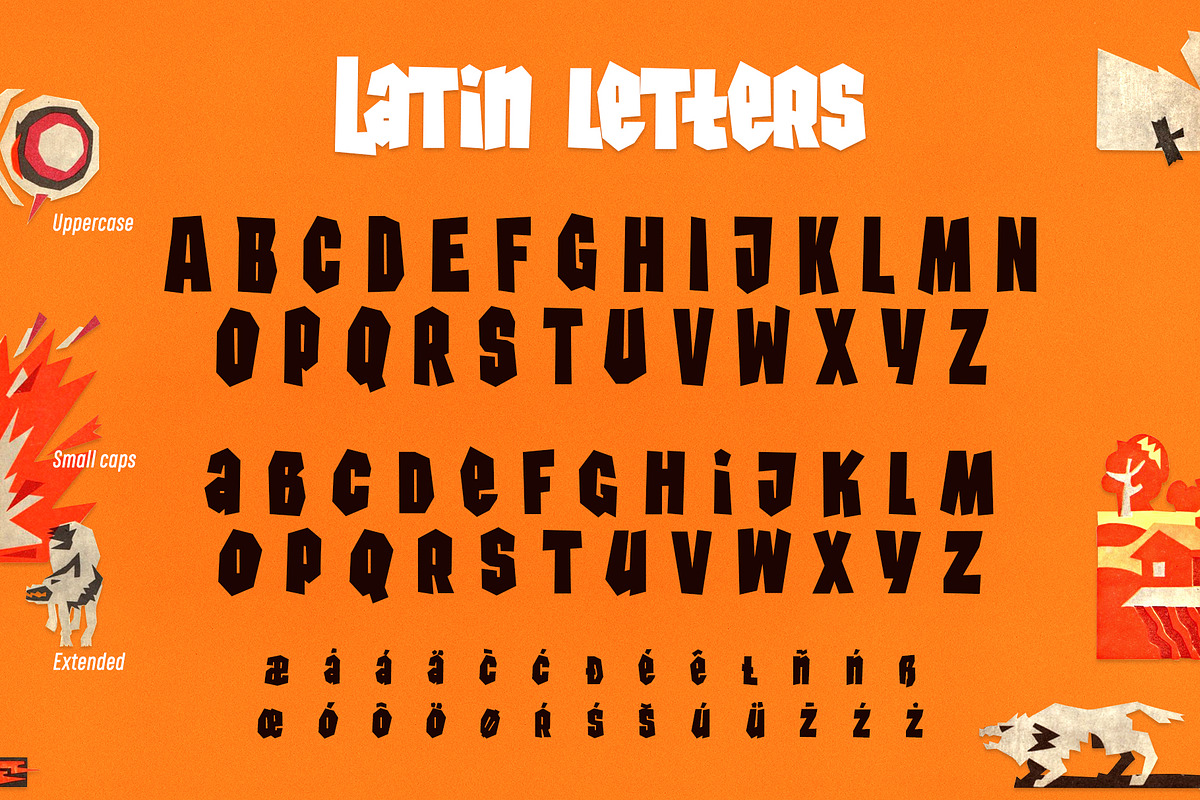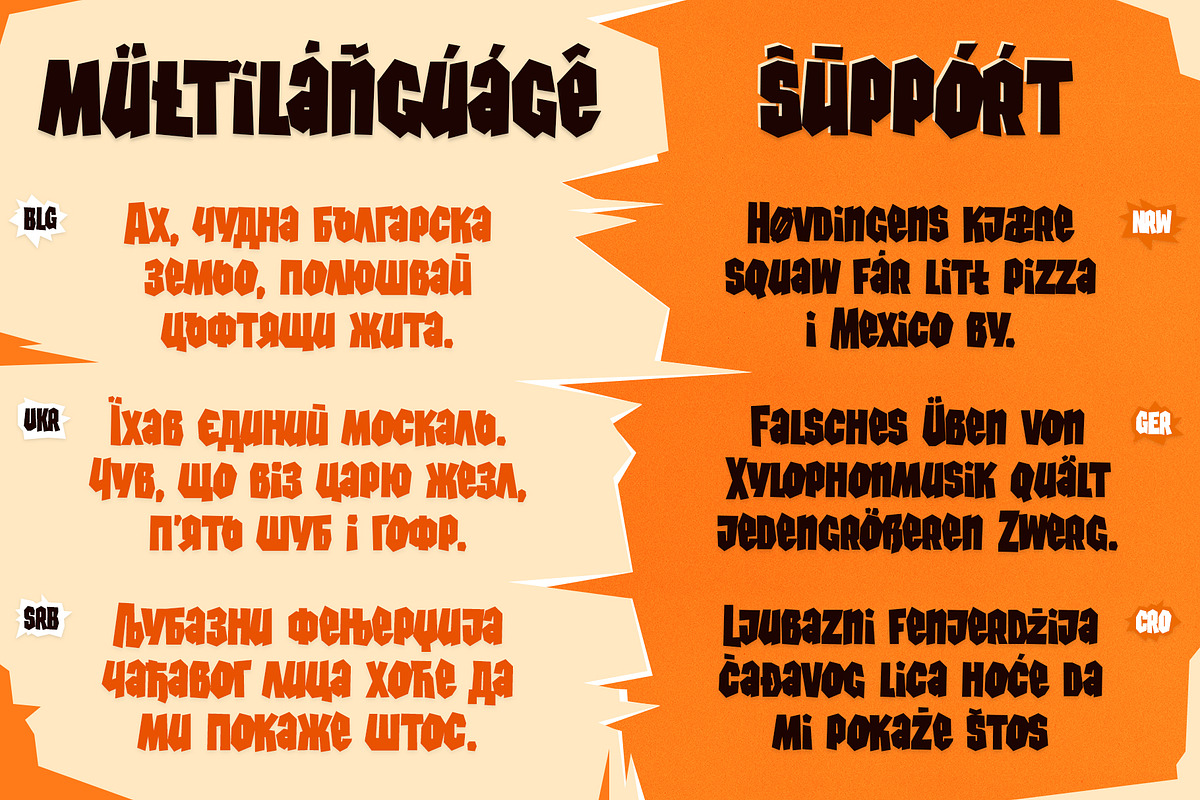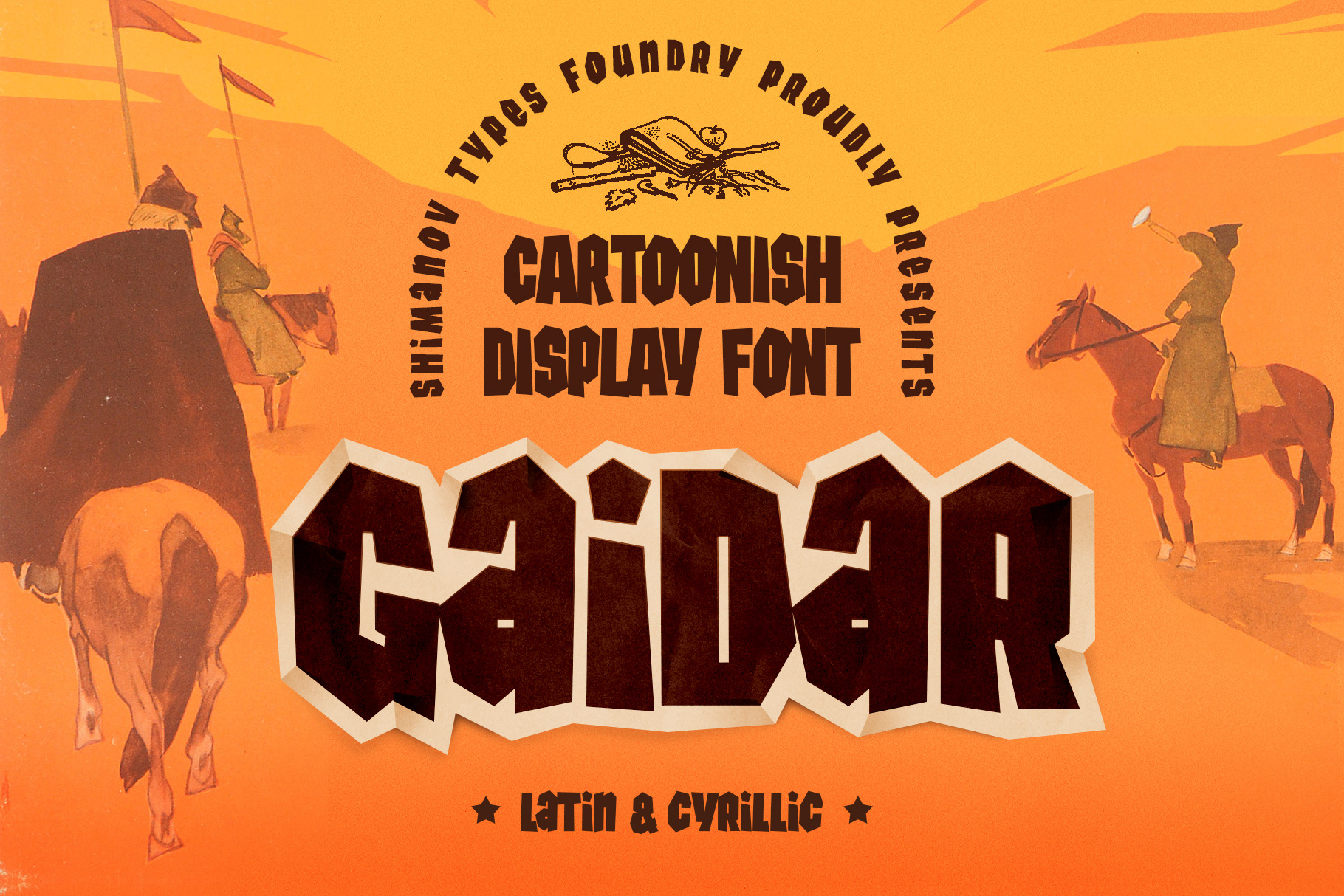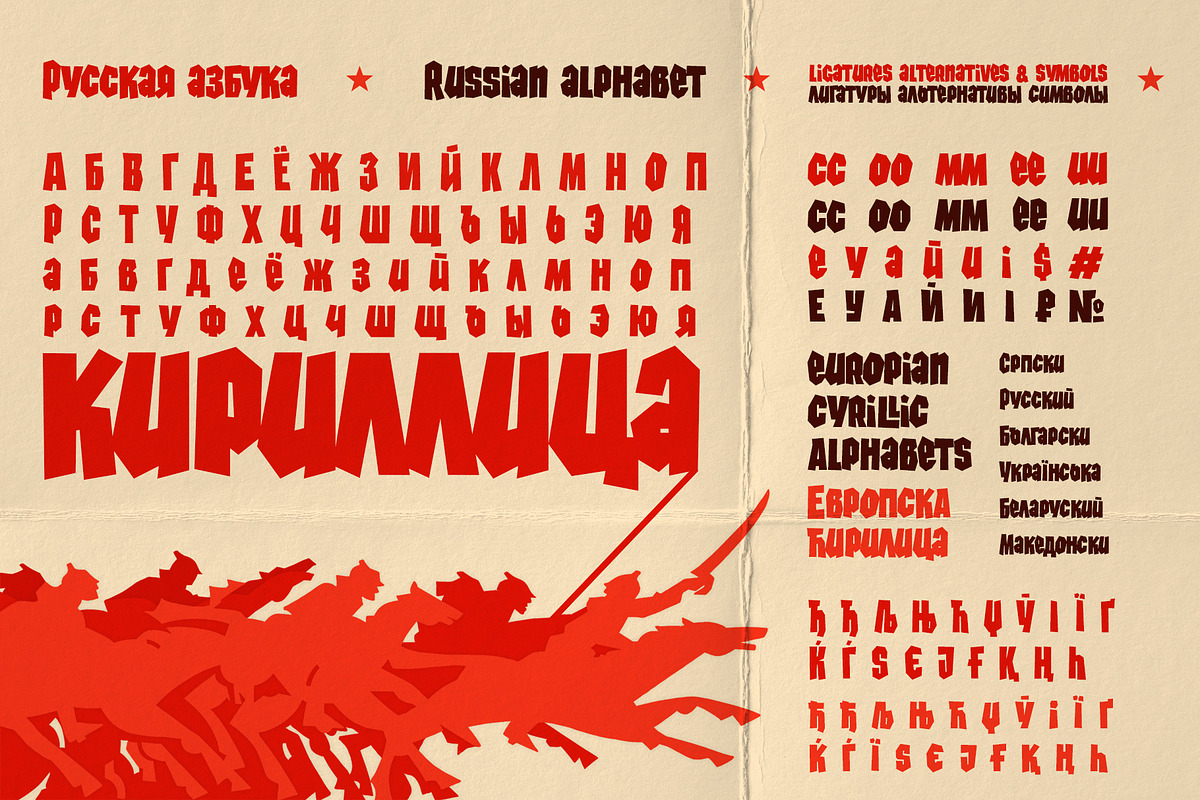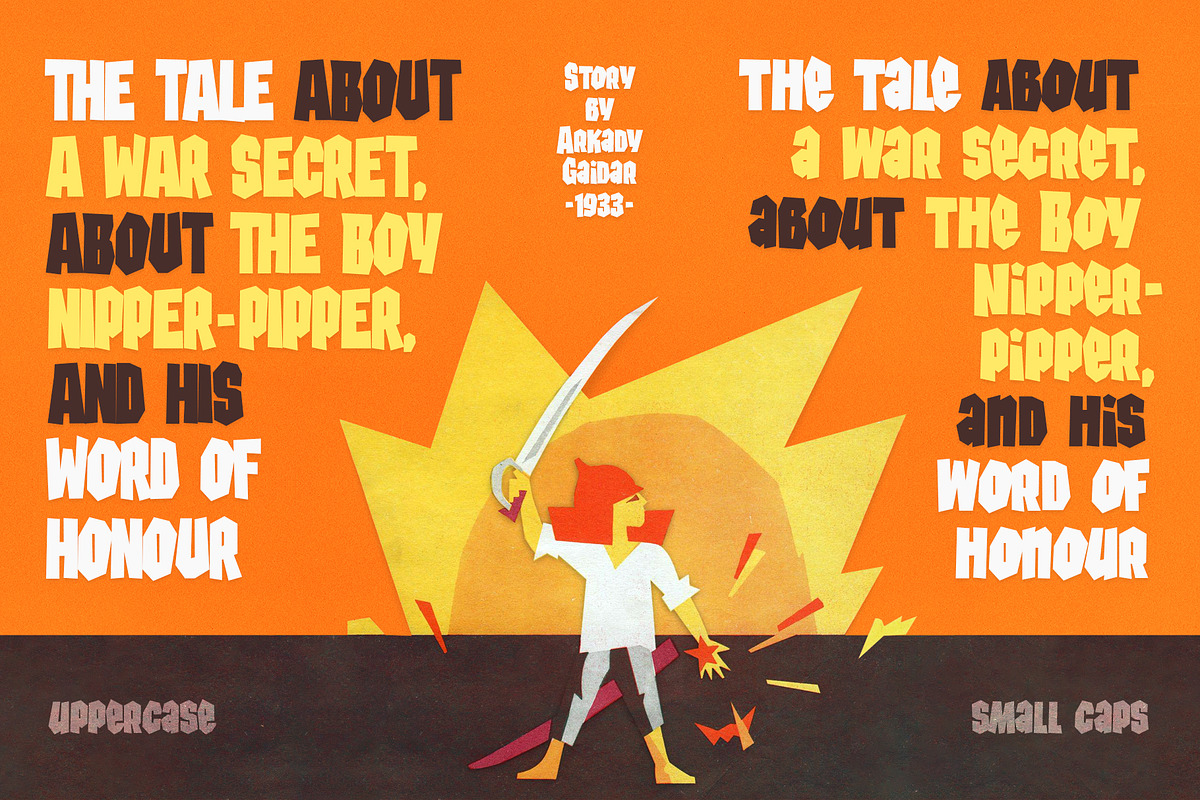
ST-Gaidar cartoonish font
The font "Gaidar" named in the honour of Arkady Gaidar. He was a Soviet writer, whose stories were very popular among Soviet children, and a Red Army commander. He died in combat fighting with German nazis in 1941. Few generations of Soviet kids are raised on his books and a number of films were made based on his stories. This font inspired by posters, movie titles and book covers of this writer. The letterforms are bold and gnarly and comes in 2 styles: uppercase and small caps. It has LATIN and Extended Eastern Europe CYRILLIC letters. "ST-Gaidar" created for titles, poster design, web design, branding and packaging works, illustrations, badges and other typography works. Pls, don't use it for for typing large arrays of text.
ST Gaidar supports 15+ languages: Belarusian, Bosnian, Bulgarian, Croatian, Dutch, English, German, Macedonian, Norwegian, Russian, Serbian, Swedish, Spanish, Slovenian, Ukrainian and probably others )